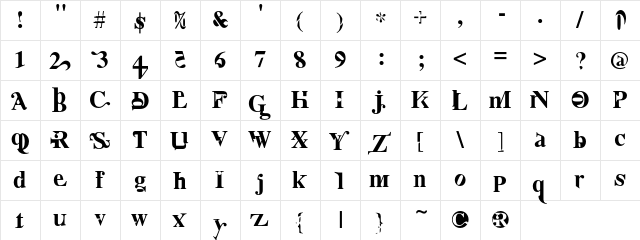
NurseRatchet Regular Font Preview
NurseRatchet Regular
Design Context for NurseRatchet Typeface
NurseRatchet is a composed and adaptable typeface that performs quietly and consistently across a wide range of design contexts.